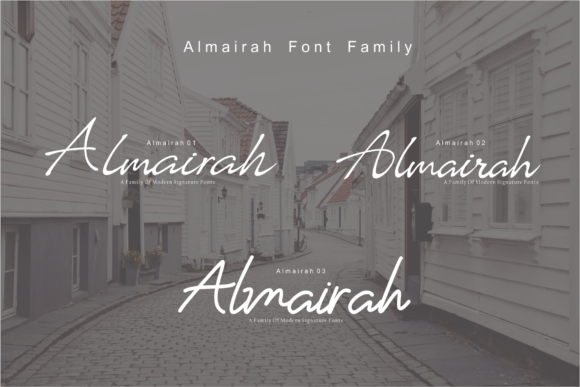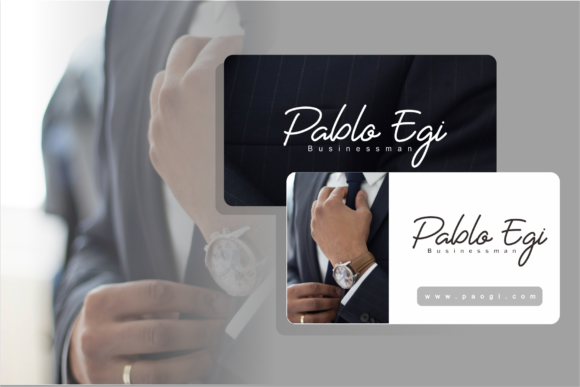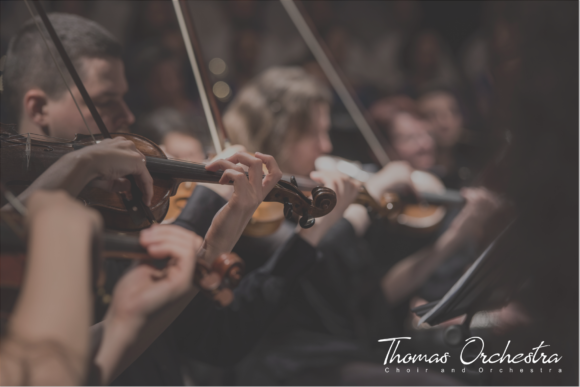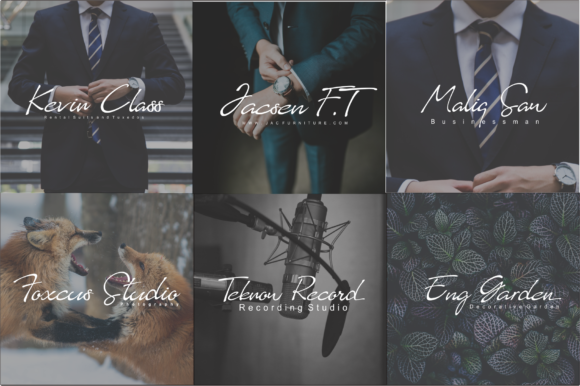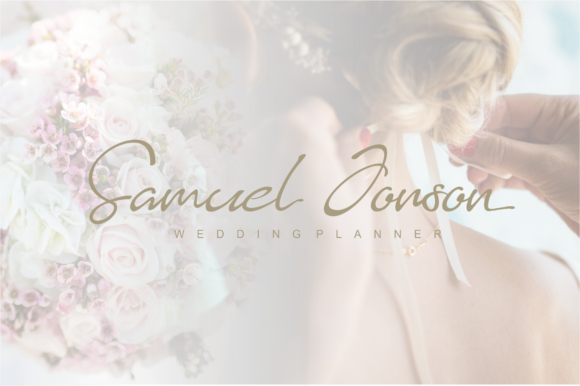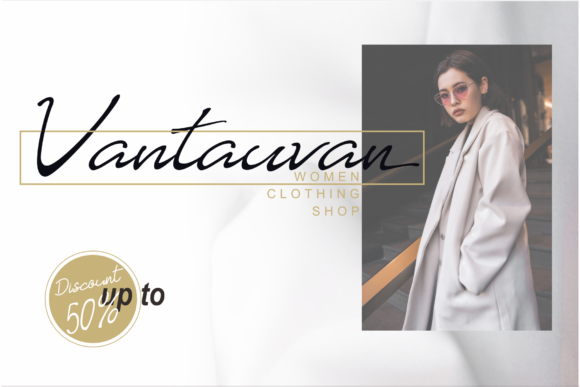
Unleashing Elegance with the Almairah Font
Have you ever stared at a blank page, trying to conjure up the perfect font to bring your design to life? The right font can make all the difference between a mediocre and a stunning piece of work. I recall a particularly frustrating session where I spent hours searching for the perfect font to complement my design. That’s when I stumbled upon the Almairah Font – an exquisite and relaxed signature font that added a touch of elegance to my work.
The Almairah Font is designed to add a stylish and fashionable flair to your designs, making it a valuable asset for any designer. With its easy-to-use interface and sophisticated aesthetic, this font is perfect for adding a touch of sophistication to your projects. Whether you’re working on a branding project, a website, or a print material, the Almairah Font is sure to impress.
Almairah Font Key Features
- Font Family: Almairah is a modern, elegant script font, ideal for creative projects and branding.
- Font Size: Almairah is designed to be highly scalable, with a minimum font size of 12pt and a maximum font size of 120pt.
- Resolution: Almairah is optimized for high-resolution displays, making it perfect for use in digital designs, such as logos, typography, and graphics, at resolutions up to 300 DPI.
- Language Support: Almairah supports a wide range of languages, including Latin, Cyrillic, and Arabic scripts, making it a versatile font for global branding and design projects.
- Unique Characteristics: Almairah features a unique, flowing script style with intricate connections between letters, giving it a beautiful, hand-written feel.
Designer Review: Almairah Font
First impressions are everything, and Almairah Font definitely makes an impact. ✨ The clean, elegant lines and subtle curves give this font a sophisticated feel that’s perfect for luxury brands and high-end designs. The font’s unique letterforms and carefully crafted details make it stand out from more generic sans-serif fonts.
- ✨ Elegant and sophisticated feel, perfect for luxury brands
- ✨ Unique letterforms and carefully crafted details
- ✨ Works well in a variety of contexts, from print to digital
However, there are a few limitations to consider. ⚠️ The font can feel a bit too ornate for some designs, and the subtle curves can make it difficult to read at smaller font sizes. Additionally, the font’s unique letterforms can make it challenging to pair with other fonts.
- ⚠️ Can feel too ornate for some designs
- ⚠️ Difficult to read at smaller font sizes
- ⚠️ Challenging to pair with other fonts due to unique letterforms
Overall, Almairah Font is a great choice for designers looking to add a touch of elegance and sophistication to their designs. While it may not be suitable for every project, it’s definitely worth considering for luxury brands and high-end designs.
Tips for Getting the Most Out of Almairah Font
Almairah Font is a versatile and elegant font that can be used in a variety of designs. Here are some tips for getting the most out of it:
- Use it for titles and headings to add a touch of sophistication.
- Pair it with other elegant fonts to create a cohesive look.
The recommended font size for using the Almairah Font in body text is between 12 and 14 points, depending on the design context and target audience. This font size range provides optimal readability and legibility for most users.